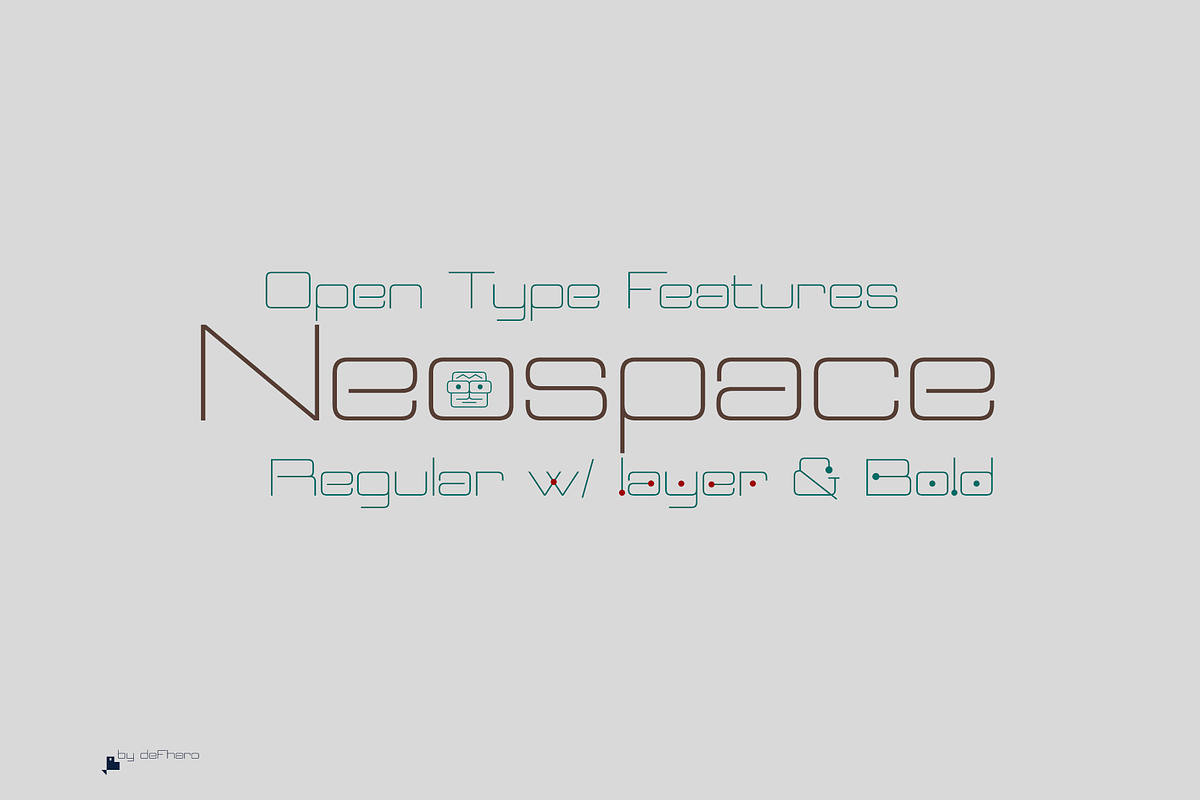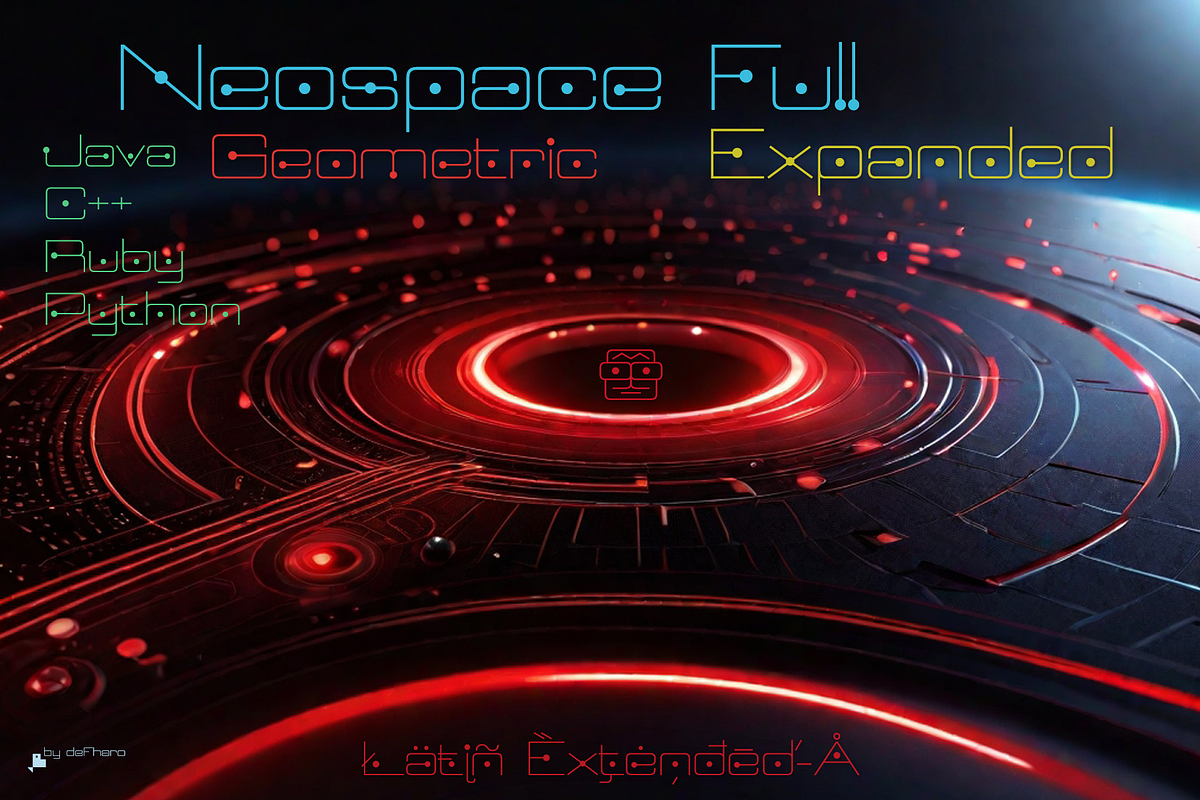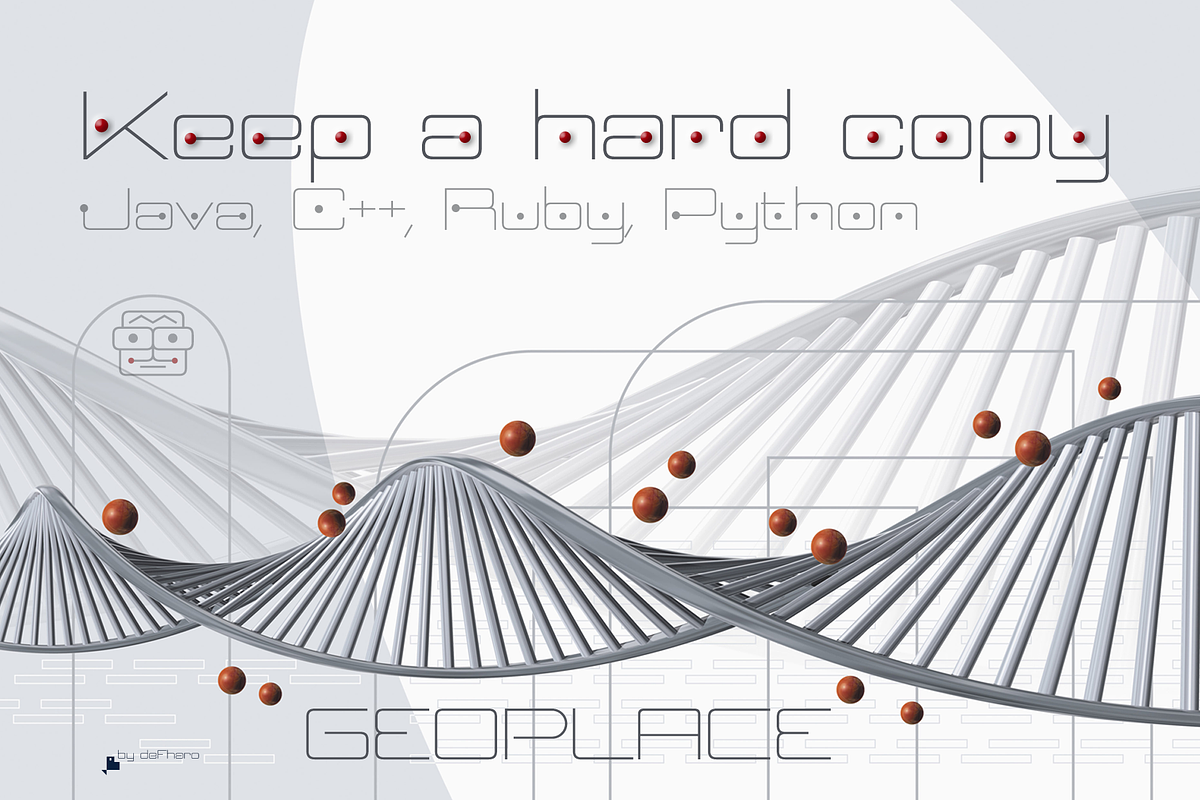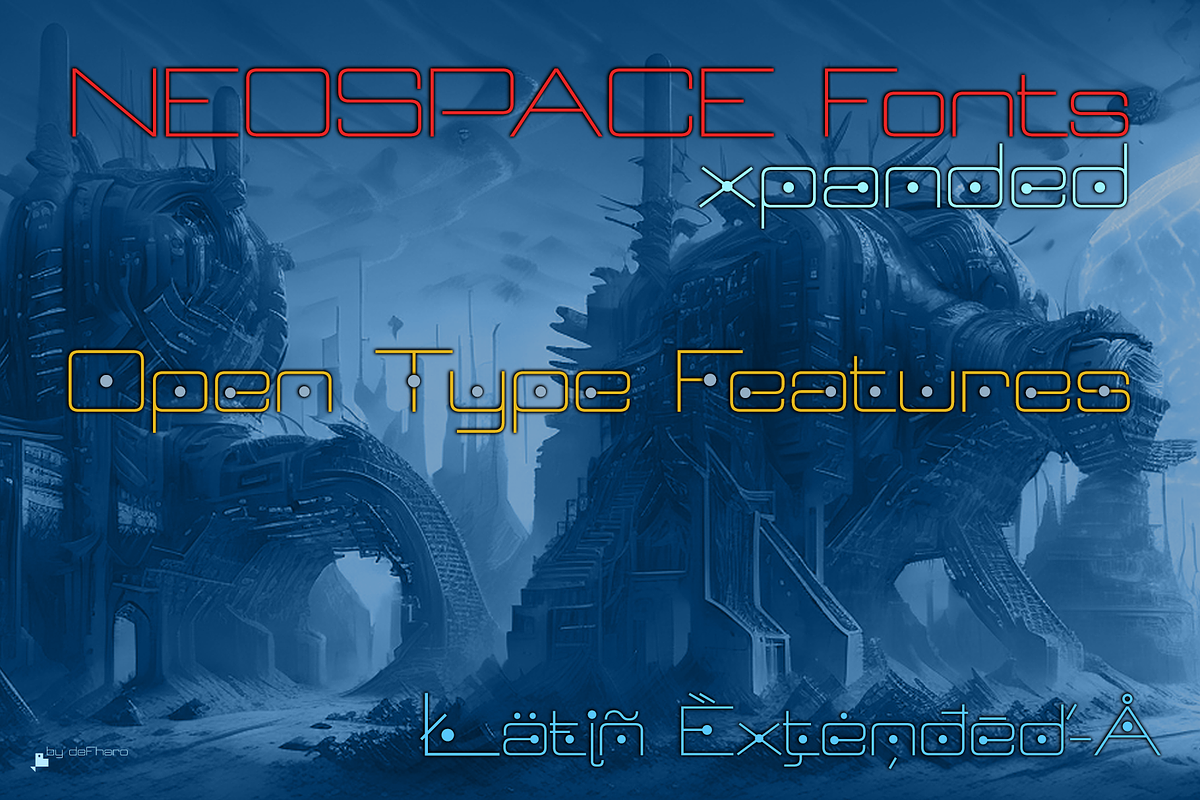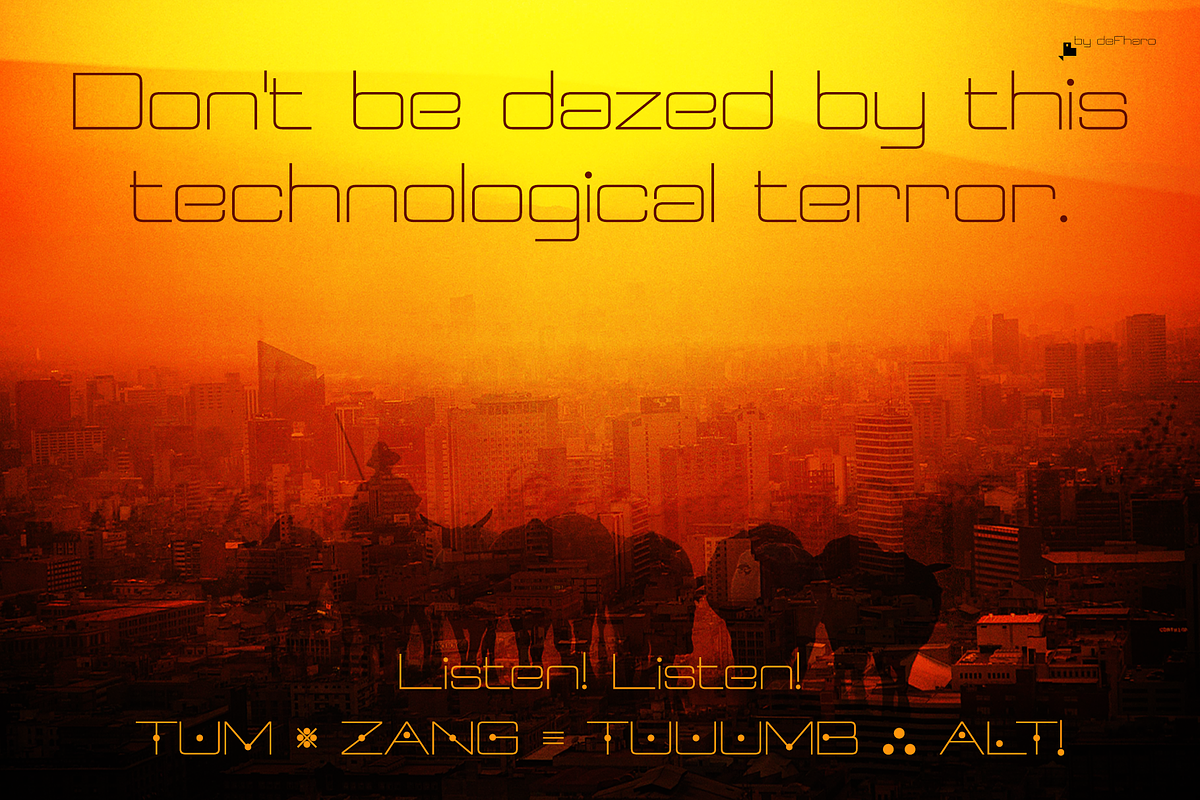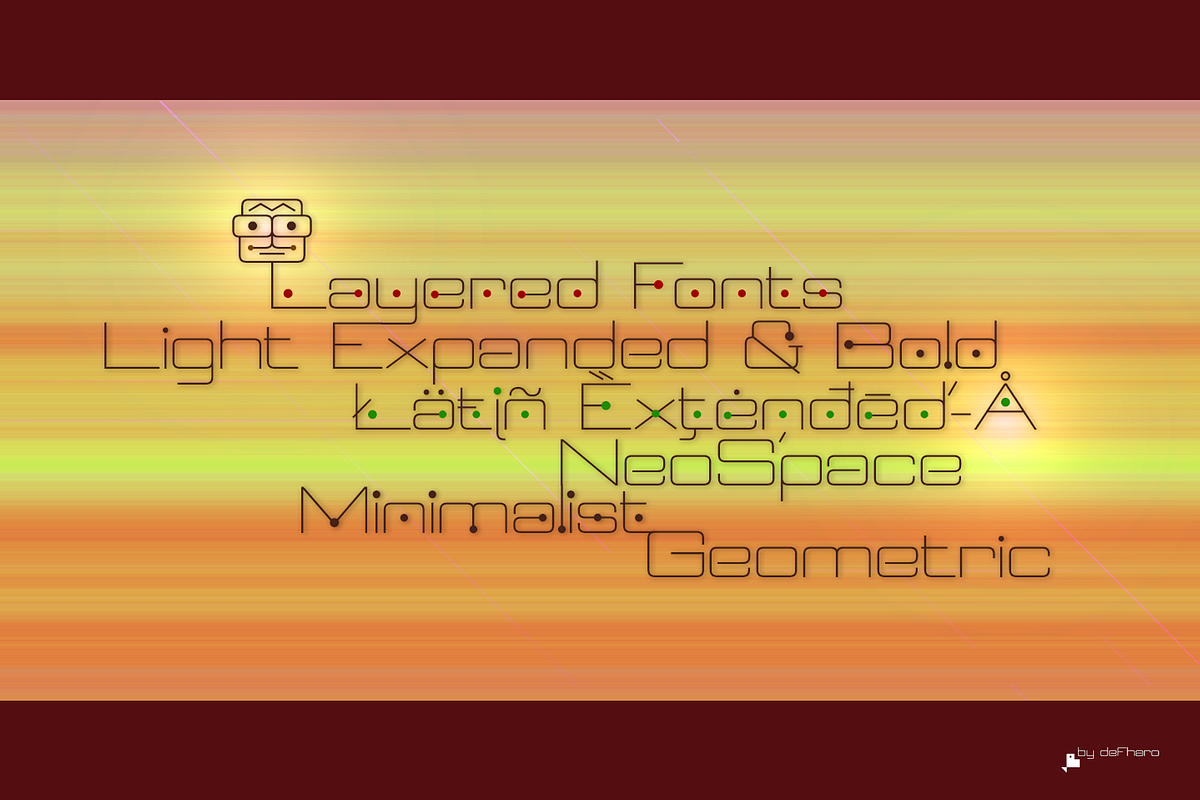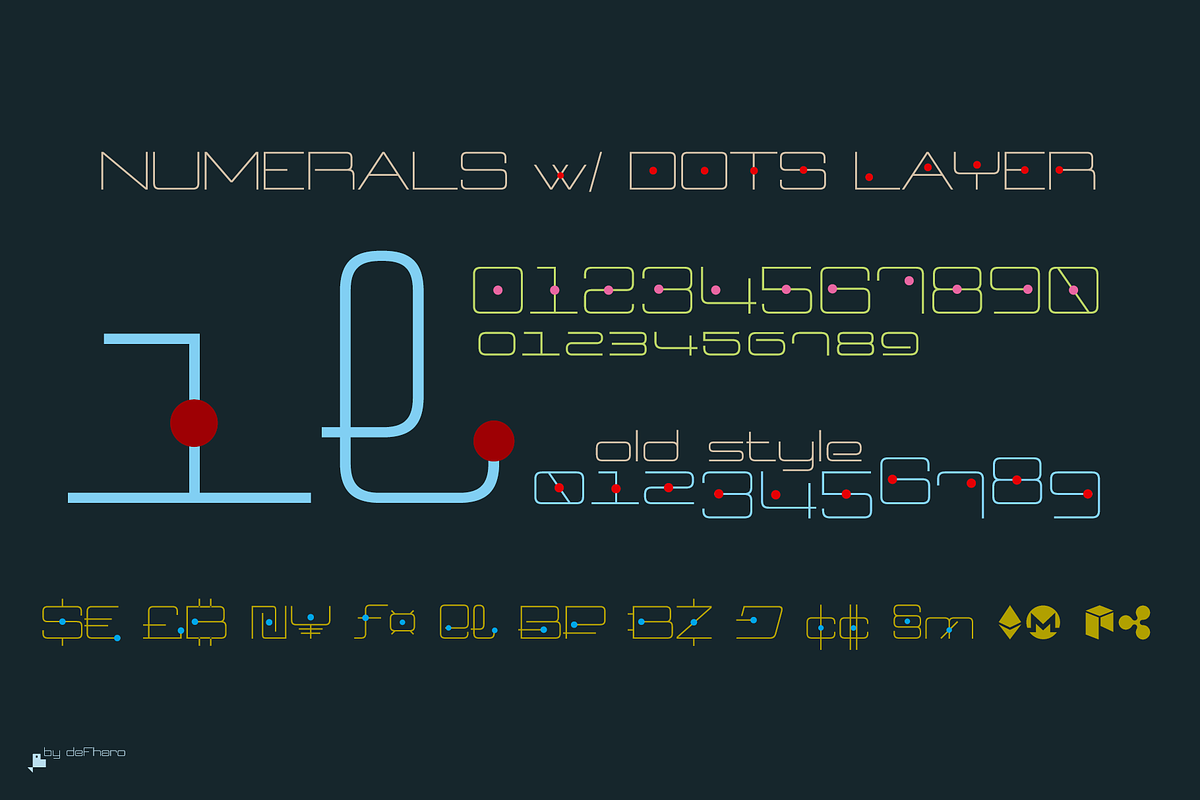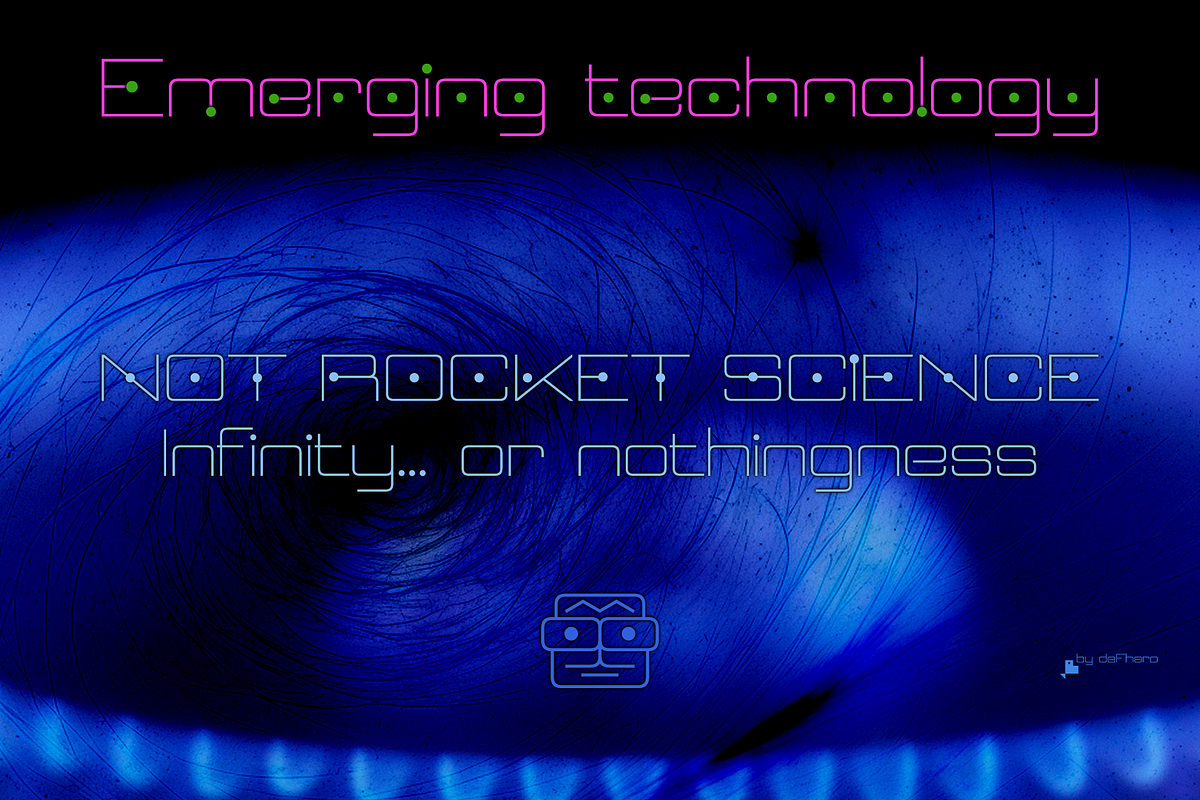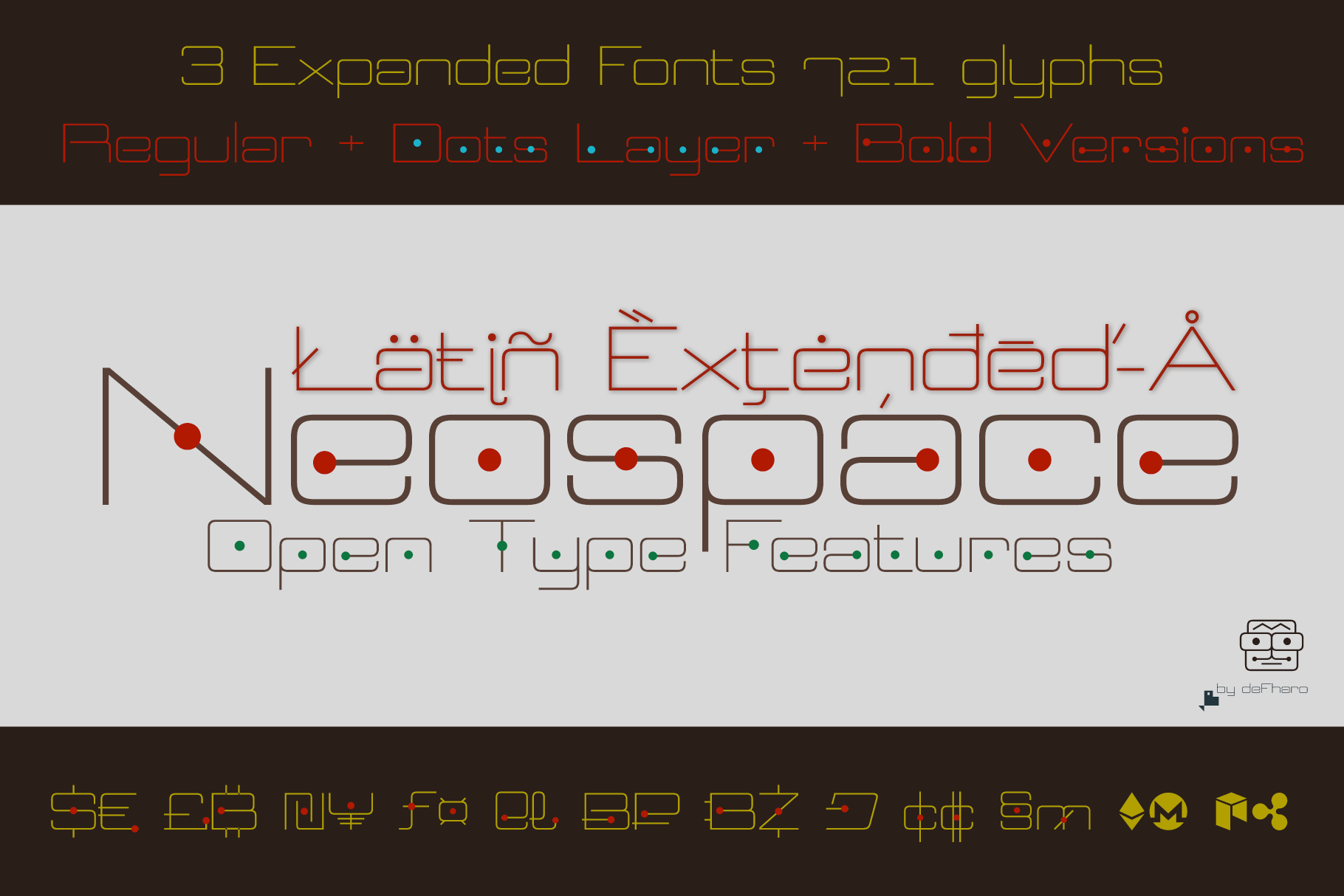
Neospace, 3 Display & Layered Font
Neospace Expanded is an avant-garde typeface designed for technology and science fiction lovers. With its elegant geometric minimalism, Neospace redefines typographic aesthetics with a perfect fusion between modern and futuristic.
-Geometric Inspiration
Designed with an expanded proportion and thin thickness, it exudes its own high-tech, futuristic and space style. Each Neospace character has been sculpted from the letter “O”, using the mathematical proportions of the Fibonacci sequence in curves, metrics and kerning, adding a golden ratio to each character. This meticulous approach ensures exceptional readability and a unique aesthetic that evokes a sense of order and precision.
-Three styles
Regular, which provides a modern and clean look; the Dot Layer, which adds a touch of color and creativity to typographic titles; and the Bold version, which evokes the feeling of futuristic and sophisticated electronic circuits, bringing a sense of avant-garde and advanced technology to your projects. Neospace allows you to create typographic titles in various colors, imitating the sophistication of futuristic electronic circuits.
-Limitless Versatility
Neospace goes further by offering alternative letters and signs, multiple sets of numbers and capital letters, as well as monetary and cryptocurrency symbols. In addition, it incorporates complex OpenType functions that further enrich the design possibilities, allowing even greater customization in your typographic designs.
- Neospace font includes the symbol of Bitcoin and currency symbols.
- OpenType Features:Additional languages, All Alternates, Bitcoin, Capital Spacing, Contextual Alternates, Denominators, Discretionary Ligatures, Fractions, Historical Forms, Inferiors, Kerning, Localized Forms, Numerators, Oldstyle Figures, Ordinals, Scientific Inferiors, Slashed Zero, Standard Ligatures, Stylistic Set, Subscript, Superior letters, Superiors, Superscript, Titling alternates.